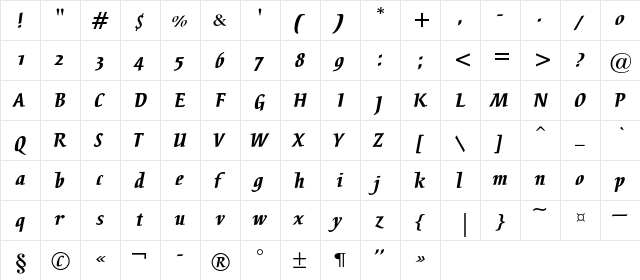
BreezeC Bold
Design Context for BreezeC Typeface
BreezeC offers clean, dependable letterforms without strong stylistic allegiance, making it a practical choice for designers who need flexibility. Its bold stroke weight gives it real presence on the page.